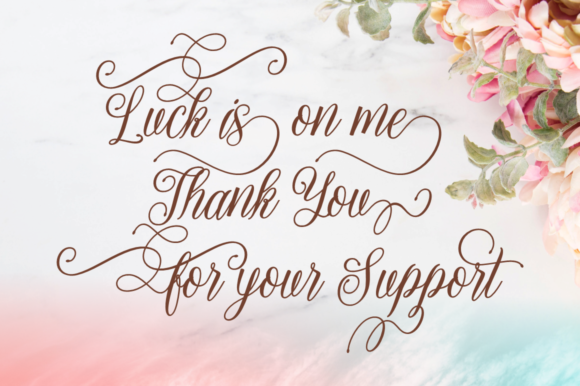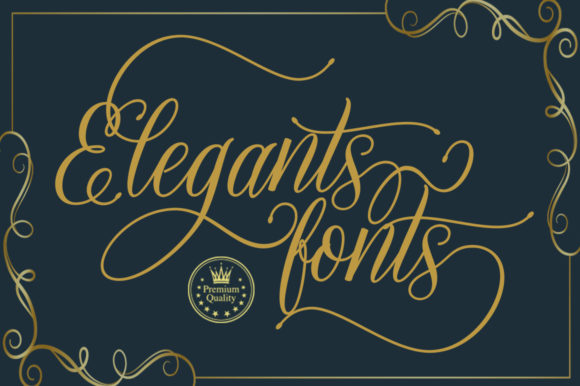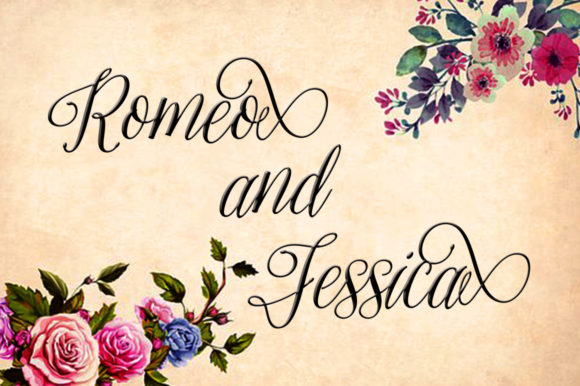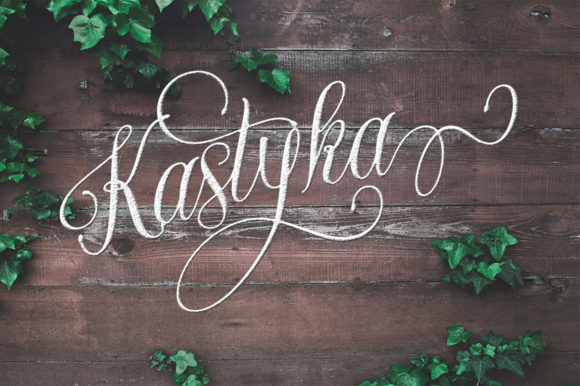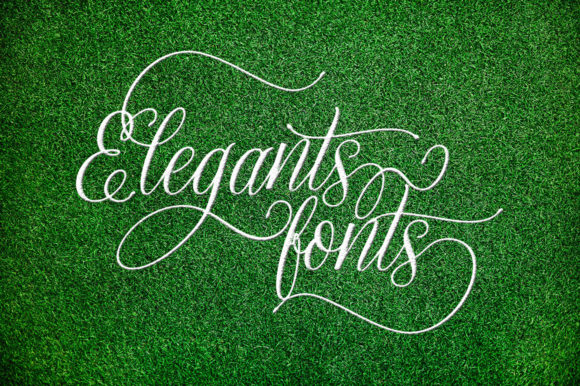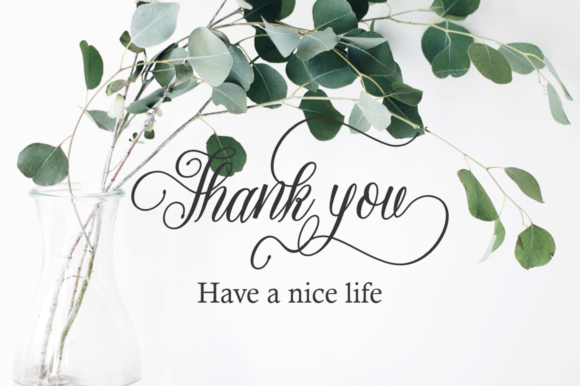
About Asoka Font
Asoka is a graceful and free-flowing script font designed to enhance a wide range of creative projects. With its elegant and balanced character, Asoka brings a touch of sophistication to packaging, invitations, flyers, mockups, event posters, and various other design contexts.
For packaging products, Asoka font adds a sense of elegance and quality to the visual presentation. Its fluid and graceful strokes create a harmonious flow that resonates with consumers, making products feel more refined and appealing. Whether it’s on labels, tags, or packaging materials, Asoka font’s high-quality vibes elevate the overall aesthetic and make a memorable impression.
Invitation cards benefit from the stylish and sophisticated appearance of Asoka font. Its free-flowing script brings an air of celebration and joy to special occasions such as weddings, birthdays, and parties. The font’s PUA encoding allows easy access to glyphs and swashes, giving you the flexibility to customize and personalize invitations for a unique and memorable touch.
Flyers and event posters also come to life with the addition of Asoka font. Its balanced and beautiful characters catch the eye and draw attention to important details and information. Whether it’s a promotional event, a concert, or a special announcement, Asoka font’s high-quality vibes help your designs stand out and create a lasting impression.
In mockups and digital presentations, Asoka font adds a touch of elegance that enhances the overall visual appeal. Its free-flowing and graceful design complements a wide range of design elements and compositions, creating a harmonious and refined aesthetic. Whether you’re showcasing digital products or presenting design concepts, Asoka font’s versatility adds a sense of sophistication.
The PUA encoding of Asoka font allows you to easily access all of the glyphs and swashes, giving you creative freedom to customize your designs. Its seamless integration into design software makes it effortless to create unique and captivating visuals that capture the essence of high-quality craftsmanship.
Overall, Asoka font’s free-flowing and balanced character, combined with its PUA encoding, makes it an excellent choice for enhancing packaging, invitations, flyers, mockups, event posters, and more. Its high-quality vibes bring a sense of elegance and sophistication to your designs, creating a lasting impact on your audience.